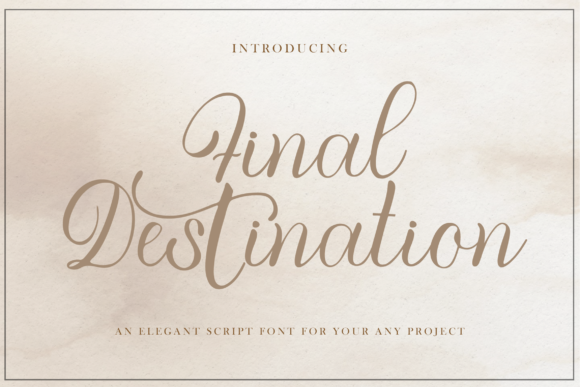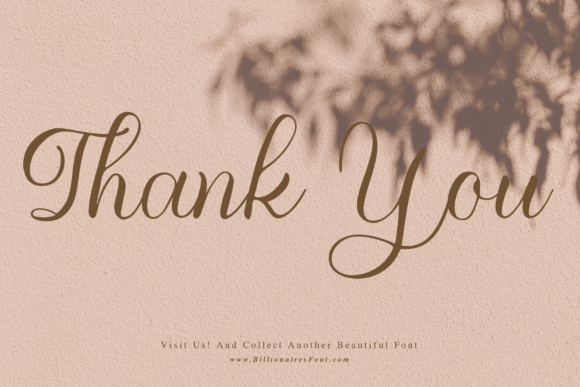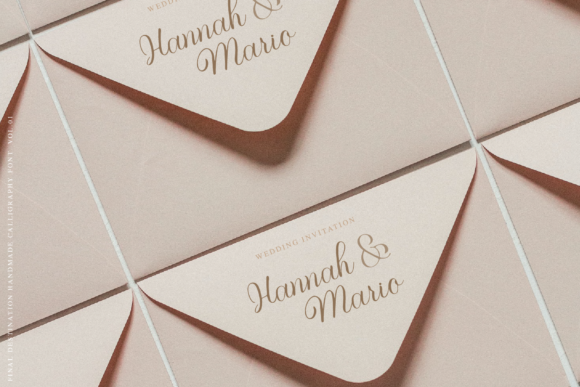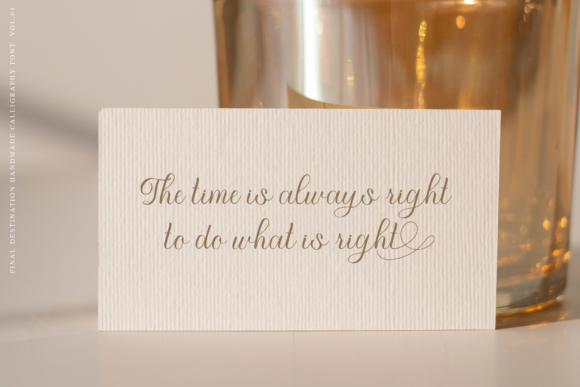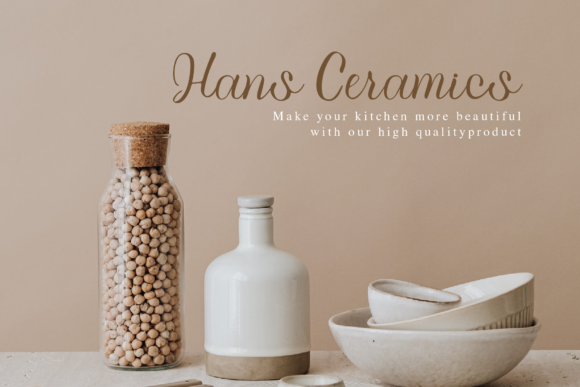
About Final Destination Font
Final Destination is a delicate, elegant, and flowing handwritten font. It has beautiful and well balanced characters and as a result, it matches a wide pool of designs. This font is PUA encoded which means you can access all of the glyphs and swashes with ease!